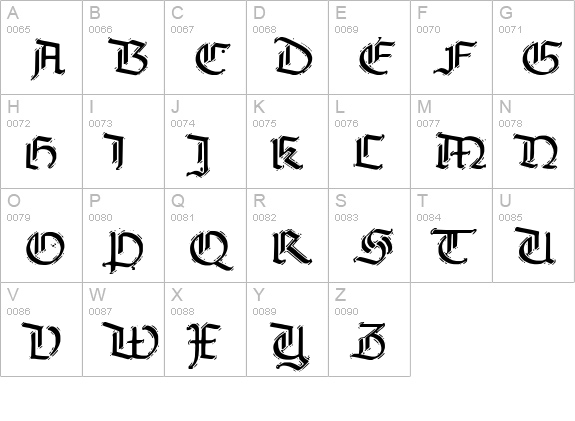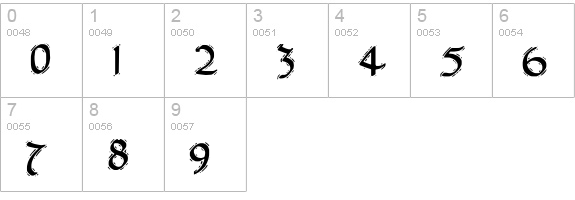
The End. Font Details
Introducing The End, a mesmerizing and captivating font that will take your designs to new heights. With its unique and innovative design, The End font seamlessly blends modern sophistication with a touch of elegance, making it the perfect choice for any project. This font exudes a sense of mystery and intrigue, making it ideal for creating eye-catching headlines, striking logos, or even adding a touch of flair to your social media posts. Its clean lines and intricate details create a visually stunning display that is sure to leave a lasting impression. But what sets The End font apart from the rest is not just its exceptional aesthetics, but its availability as a free download. Yes, that's right – The End font is freely available to download at FontsMarket.com, ensuring that this extraordinary font can be accessible to all. Whether you are a professional designer looking to add a touch of sophistication to your creations or a budding enthusiast eager to explore the world of typography, The End font is the perfect choice. Its versatility and charm make it suitable for a wide range of projects, allowing you to unleash your creativity and bring your ideas to life. So don't miss out on this incredible opportunity to enhance your designs with The End font. Head over to FontsMarket.com today, and download this extraordinary font for free. Elevate your designs and leave a lasting impression with The End font – the epitome of elegance and style.